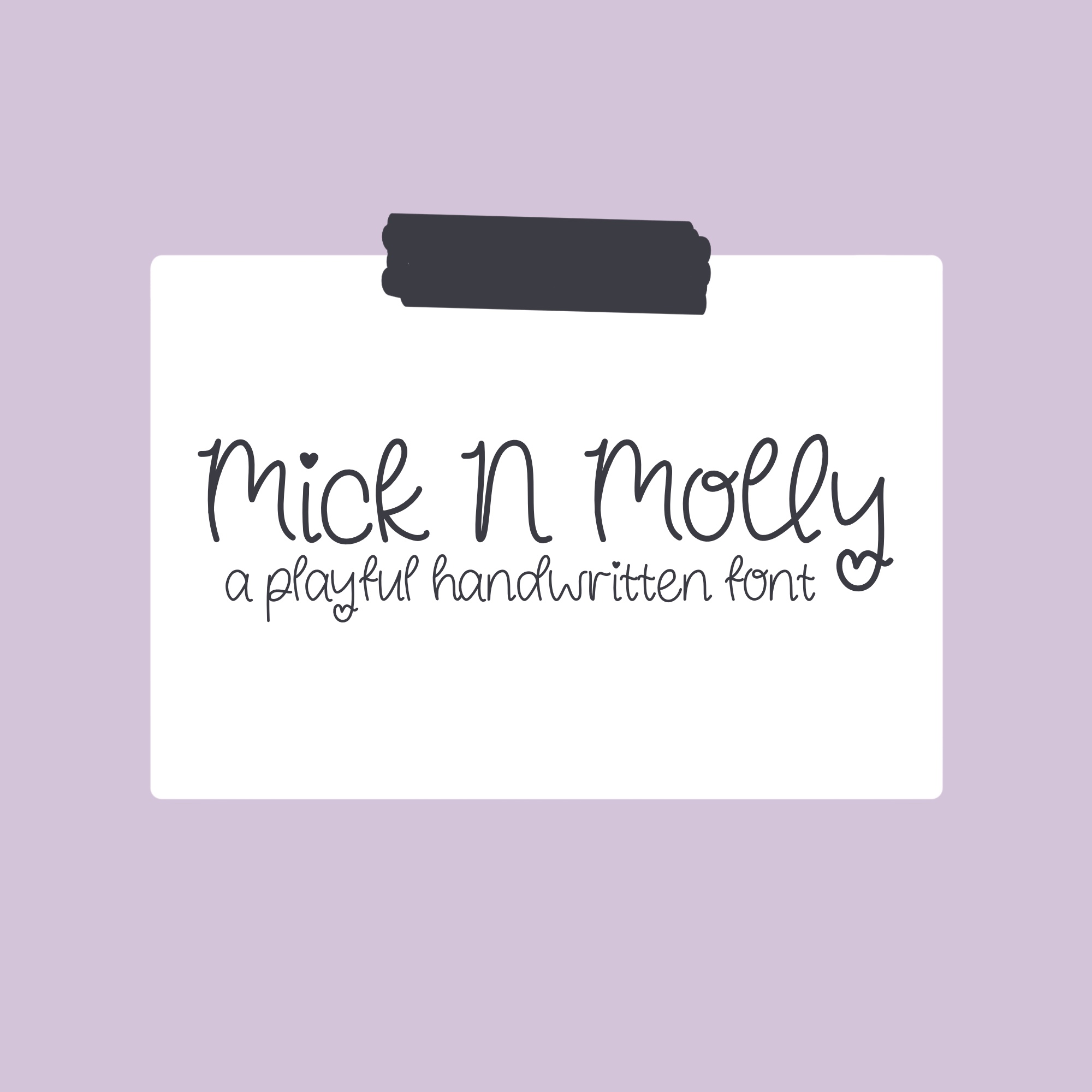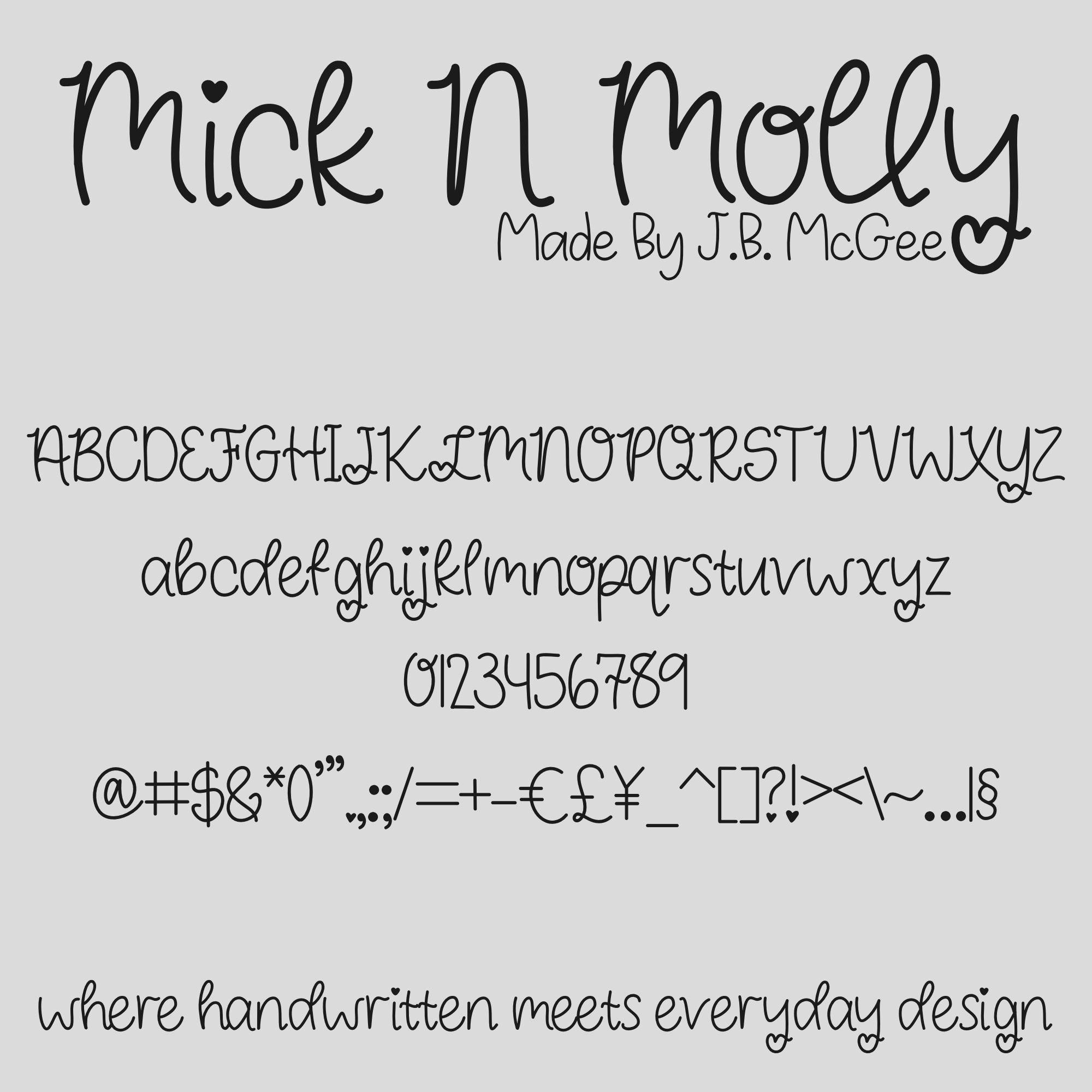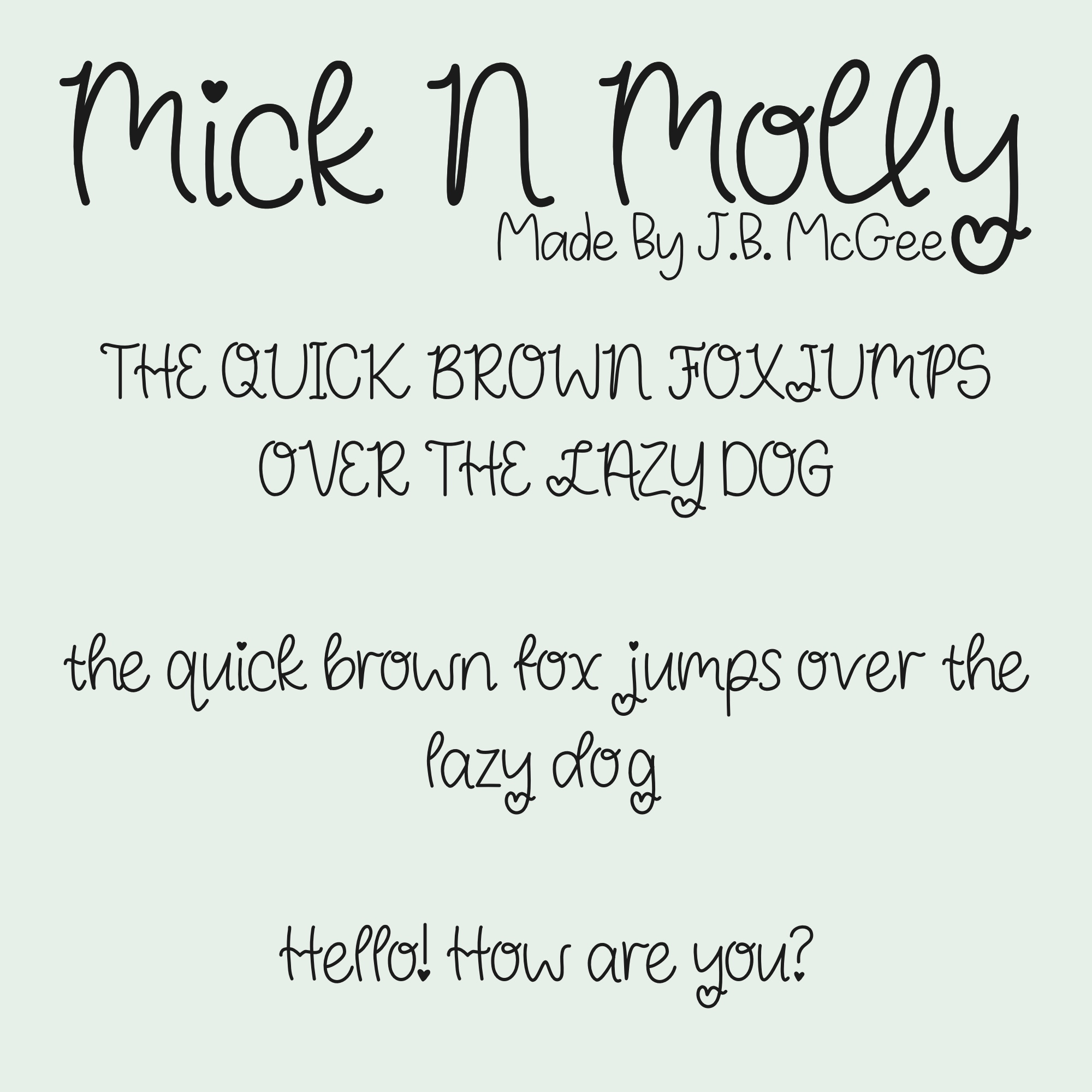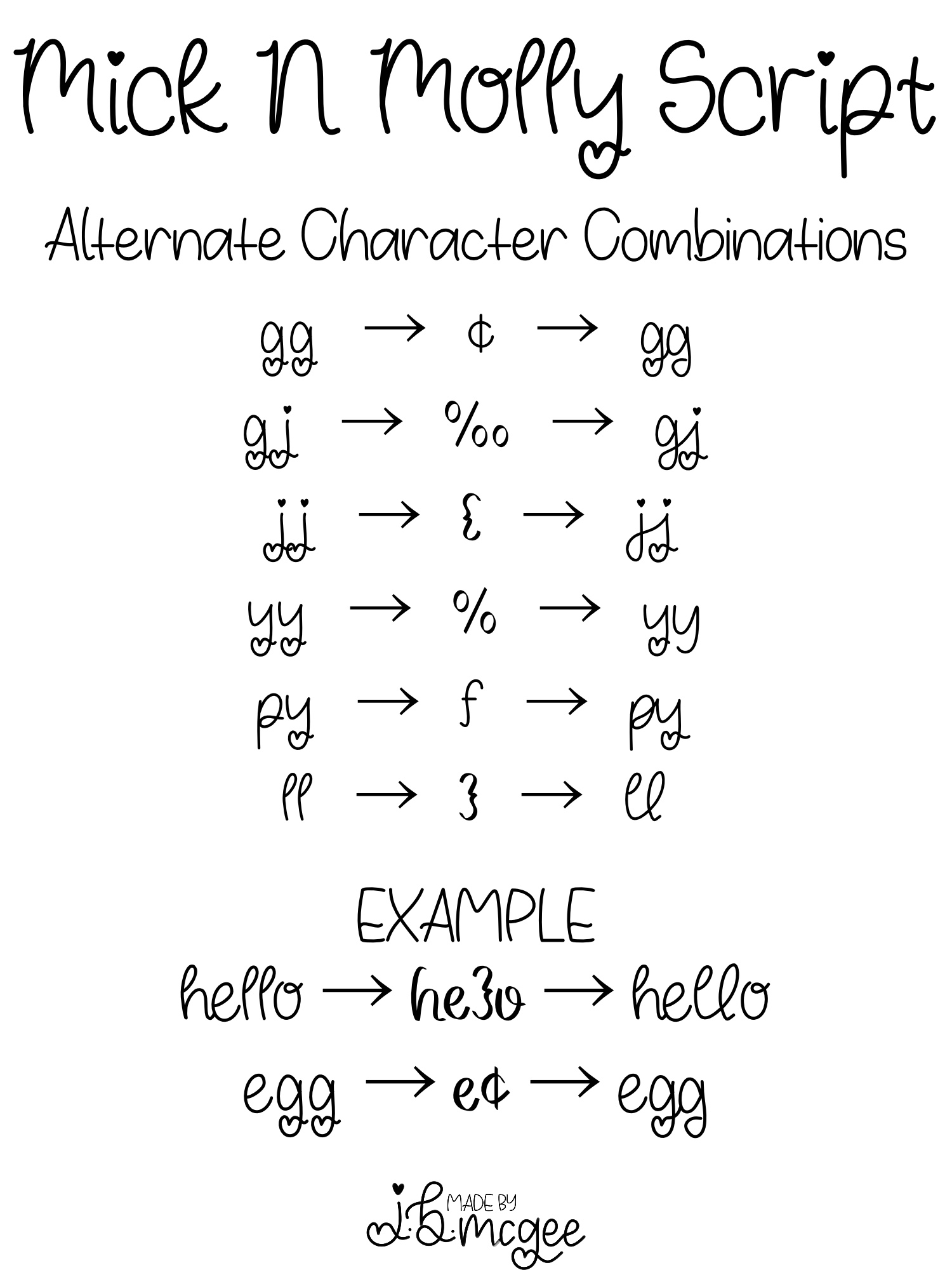
Mick N Molly Script
Playful Handwritten Font with Alternates
Mick and Molly Script is a playful handwritten font designed with soft curves, gentle loops, and a warm, approachable feel. It captures the charm of natural handwriting while staying clean and easy to read.
This font includes uppercase and lowercase letters, numbers, punctuation, and extended characters for broader language support. Select alternate character combinations are included to improve spacing in certain letter pairs, helping your text look smooth and natural.
Mick and Molly Script is perfect for branding, invitations, classroom materials, social media graphics, and everyday creative projects where you want a friendly, handcrafted look.